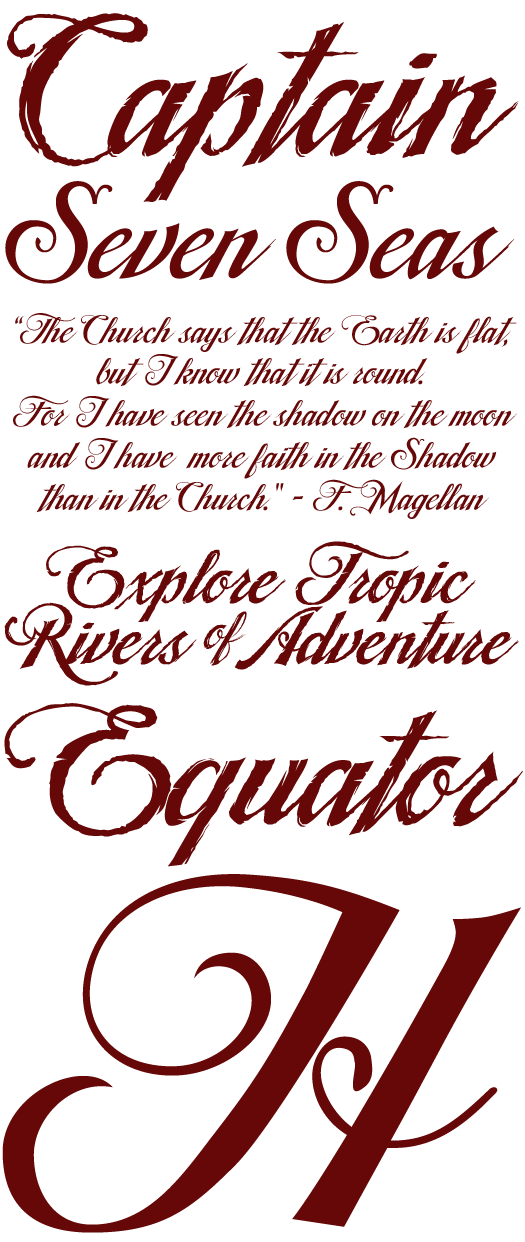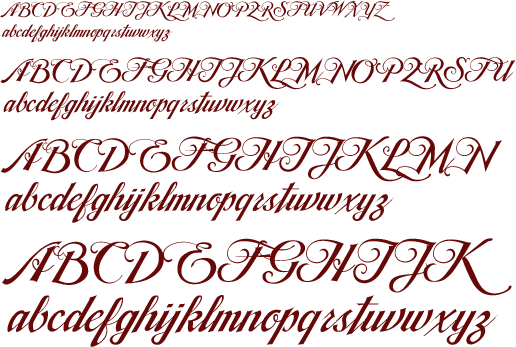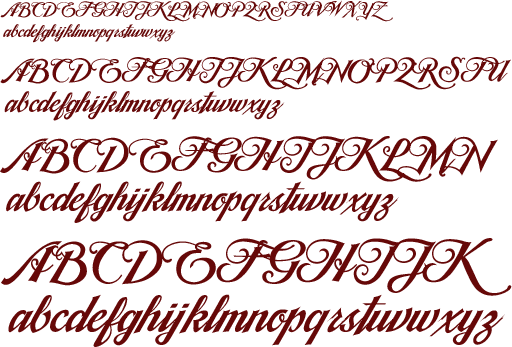
TradeWind™ by David Occhino
A graceful yet robust pirate font that simulates writing with ink and quill pen.
Character Set
TradeWind has a set of 240 glyphs.
• Latin A-Z, a-z • Complete punctuation • International characters • Mathematical symbols
Samples
• TradeWind Regular
• TradeWind Semibold
• TradeWind Rough
Additional Samples
• The following type specimens use all three styles of the TradeWind™ typeface family.
Pirate font by David Occhino Design